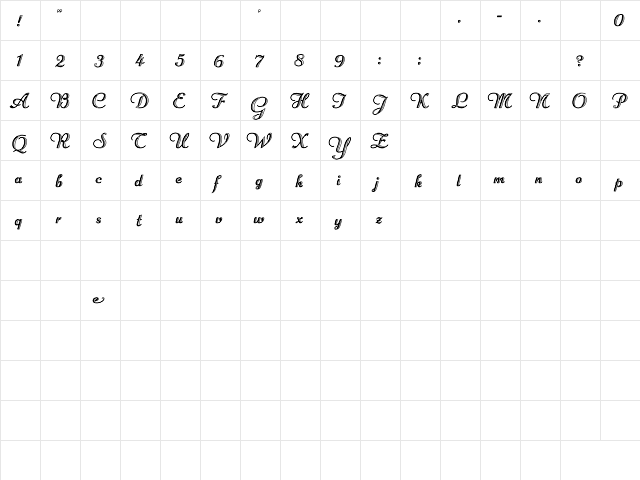
Rechtman Hollow Plain
Design Context for Rechtman Hollow Typeface
Rechtman Hollow takes a measured approach to typography — its balanced proportions and neutral character make it a reliable workhorse for both digital and print work.